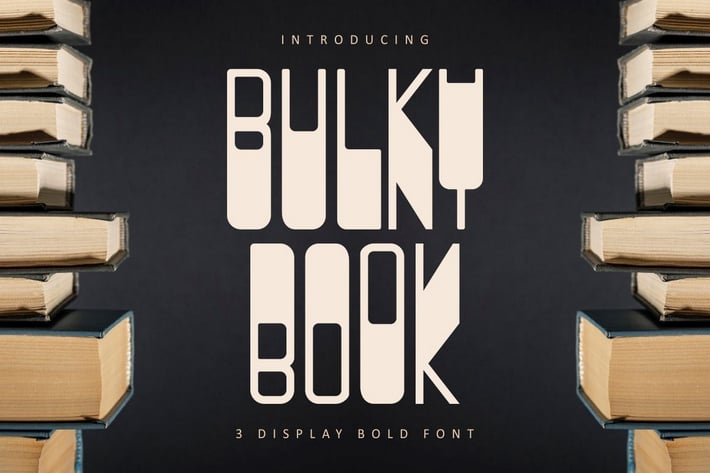
Bulkybook - 3 Display Bold Font
BULKY BOOK
BULKY BOOK is 3 Display Font. Each font has a line thickness used. There are 3 thicknesses, namely thick at the bottom, thick in the middle and thick at the top. Each font is made from the same basic, so the three fonts can be combined or paired well and matched. With this font your project will stand out and be perfect. This font is suitable for vintage and classic themes.
Suitable for logos, branding, book titles, headlines, posters, titles, stickers, social media, labels, lettering and more.